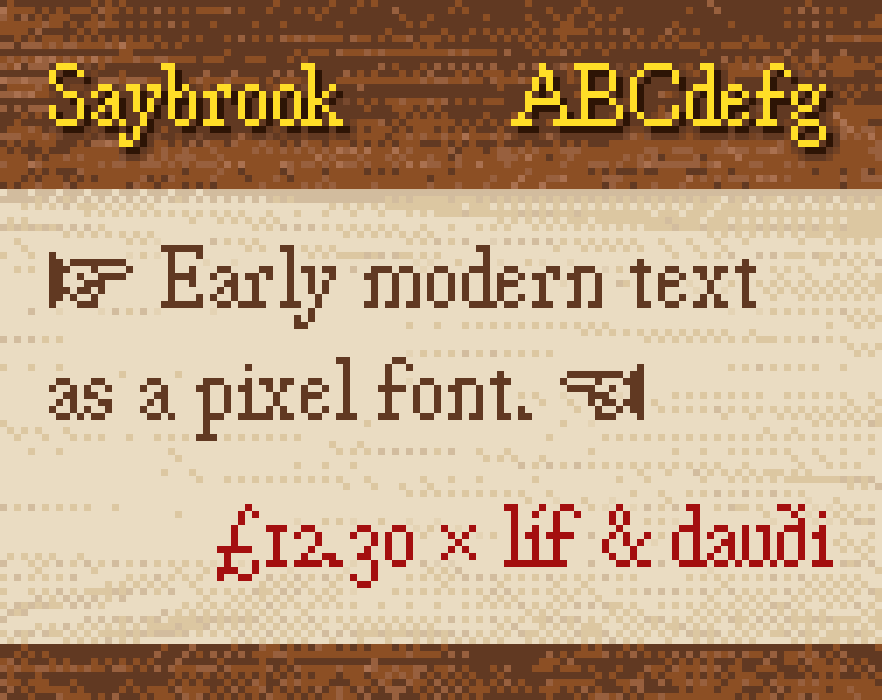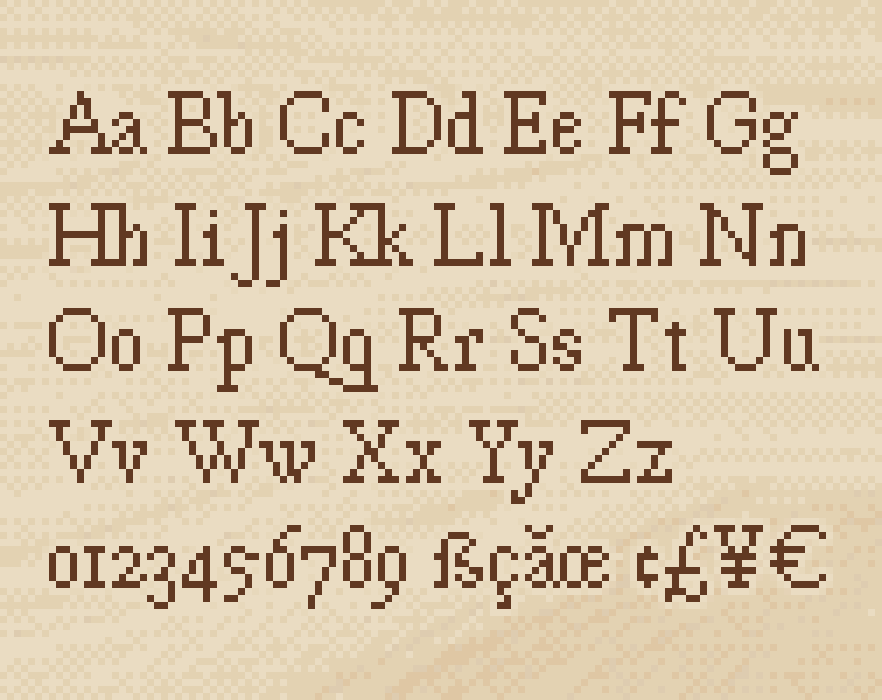
Saybrook font
Saybrook is a pixel font based on printed text of the 1700s. It has an x-height of 6px, with ascenders and descenders that go out to 12px in height.
It uses old-style numerals and has accent marks to support many different languages.